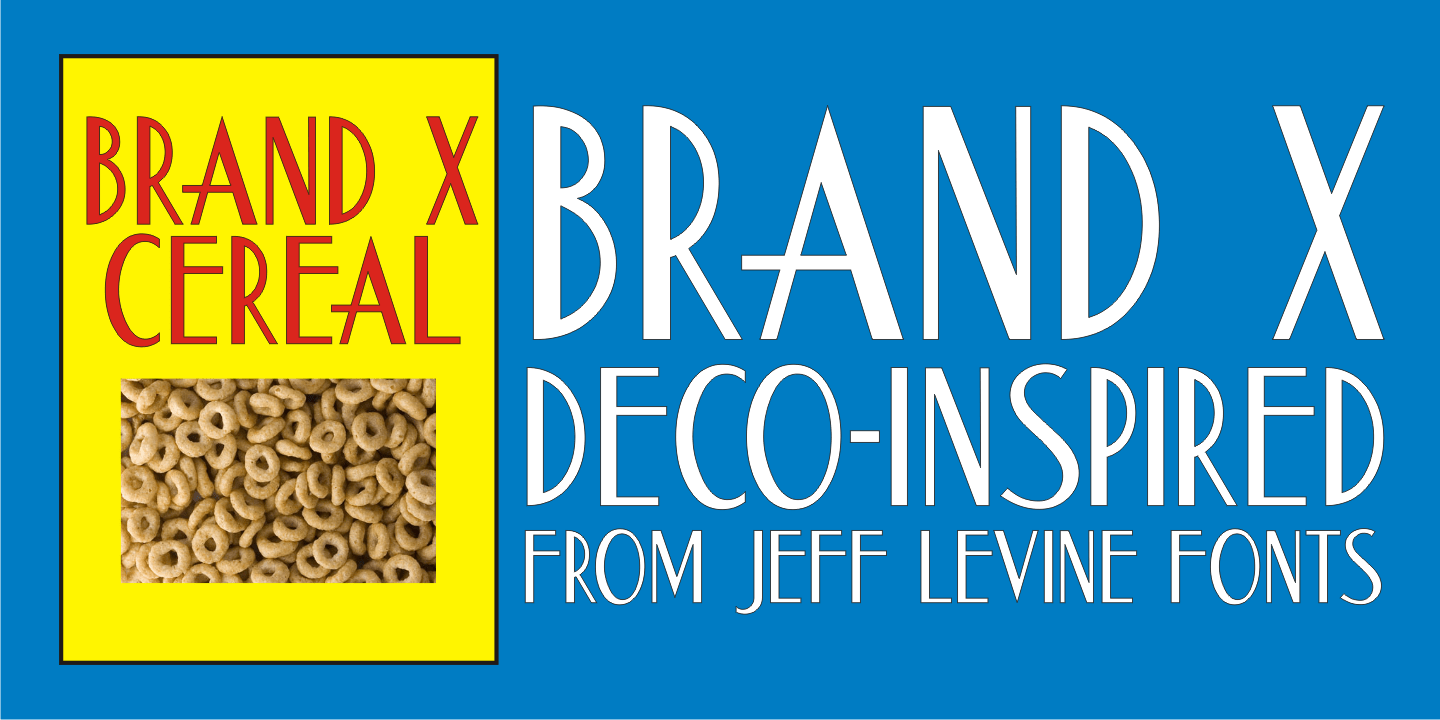
Brand X
Brand X JNL ia a retro-inspired Art Deco typeface with its name being derived from the generic label given to competitor's brands. Whenever a product wishes to extol its virtues without directly naming its competitors and thereby giving reverse publicity to them, "Brand X" is mentioned.